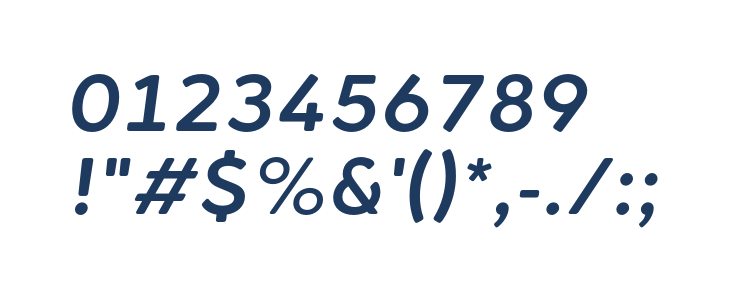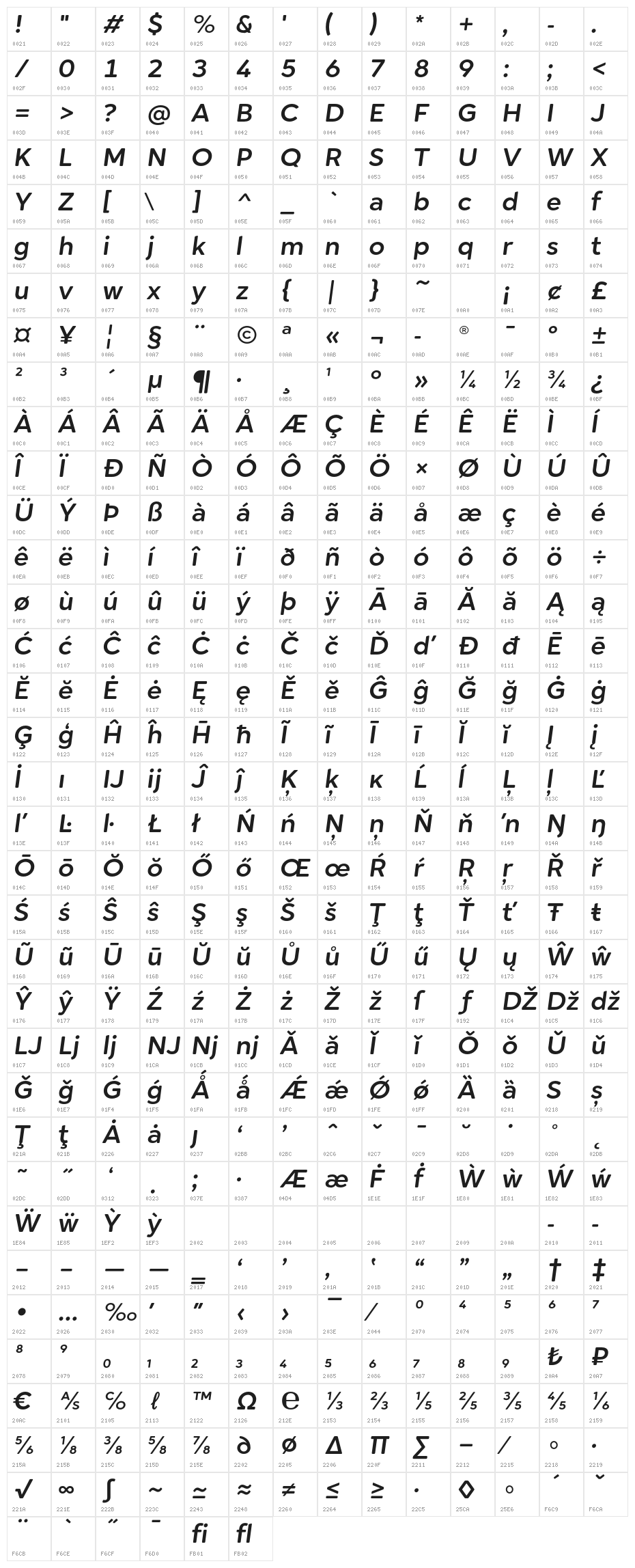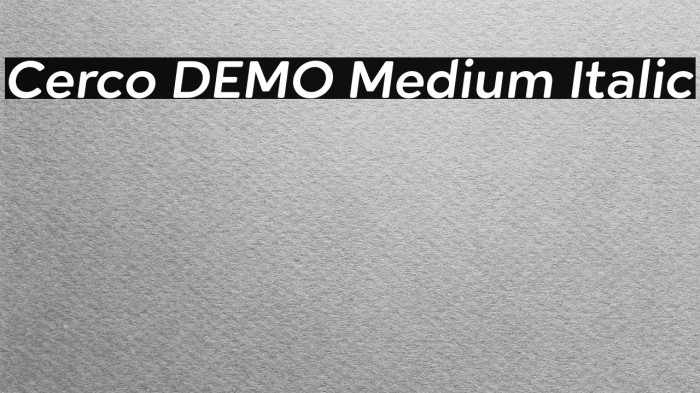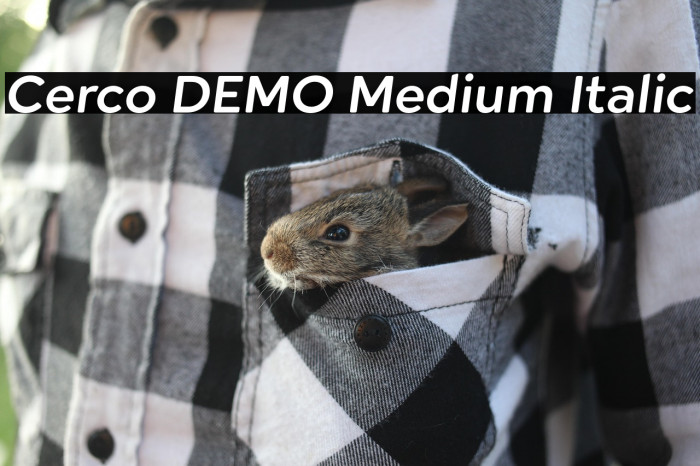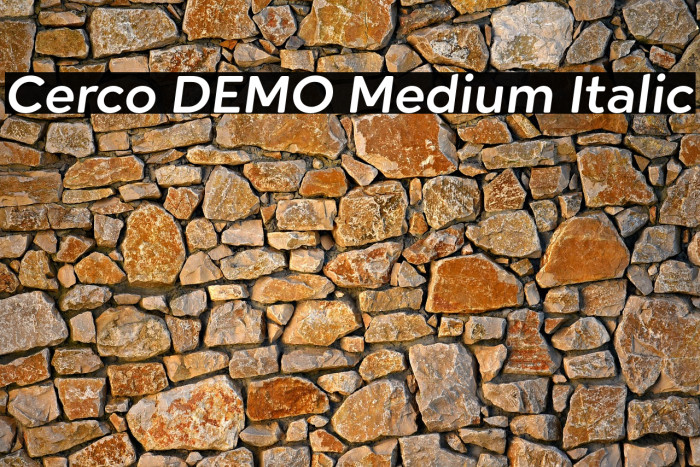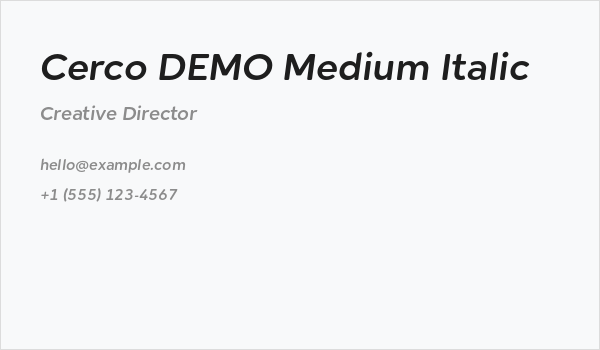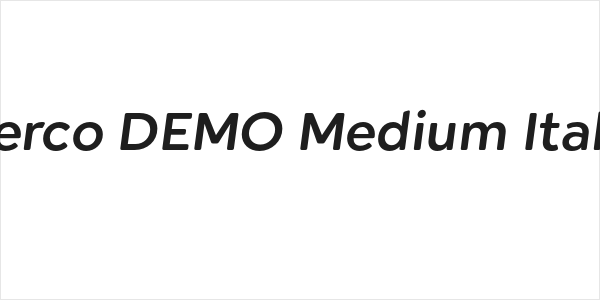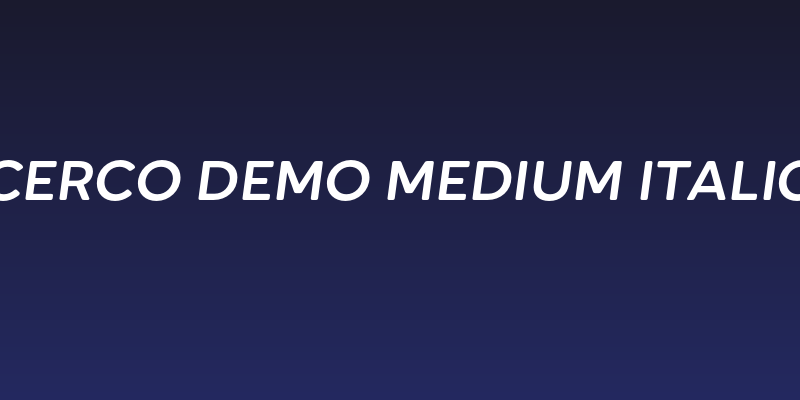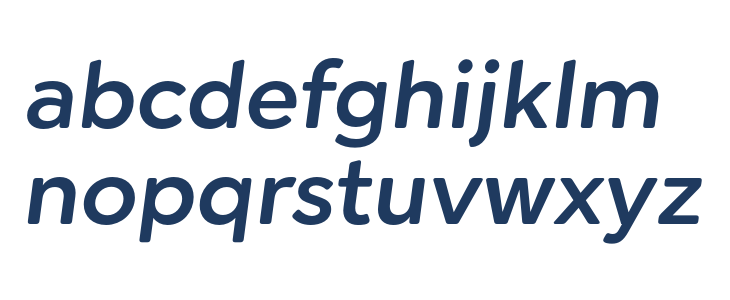
Cerco DEMO Medium Italic Font
Cerco DEMO Medium Italic Description
This font features a clean and modern sans-serif style with a medium weight and italic slant. The characters are well-balanced, offering a harmonious appearance that is both professional and approachable. The uppercase letters are bold and assertive, while the lowercase letters maintain a friendly and inviting feel. Numbers are clear and easily readable, making them suitable for various applications. Special characters are distinct and well-integrated, ensuring versatility in design projects. The overall design is sleek and contemporary, making it ideal for modern branding and communication.